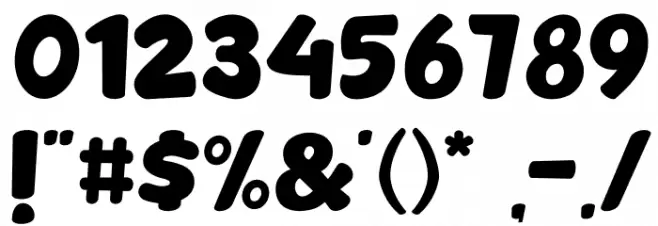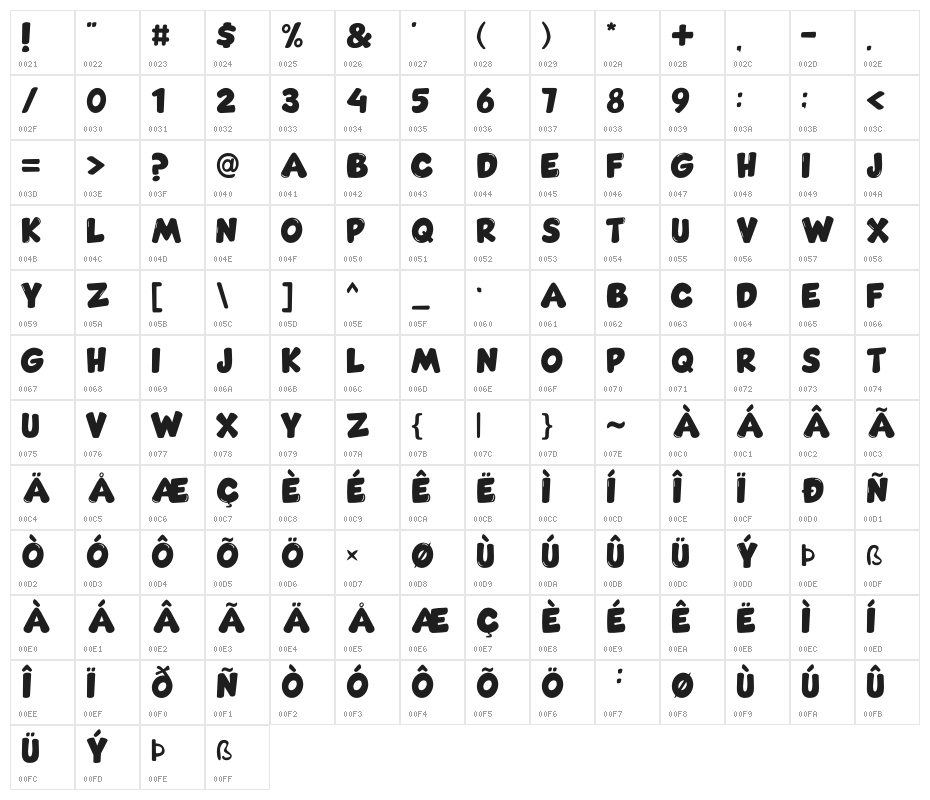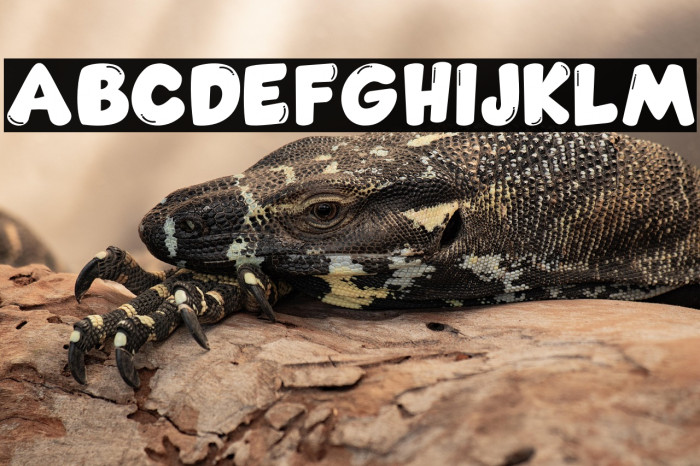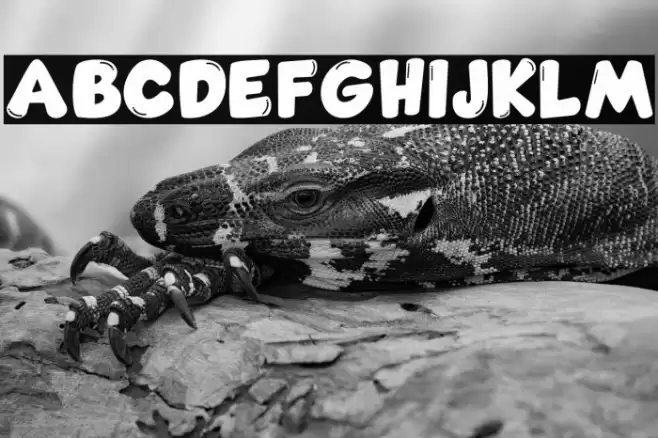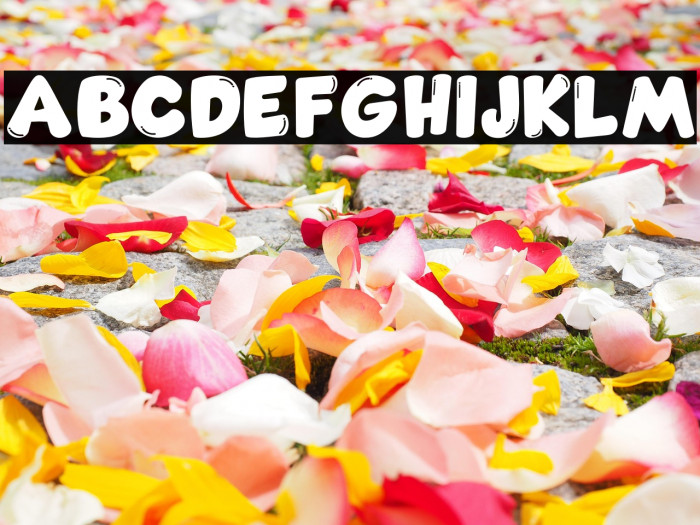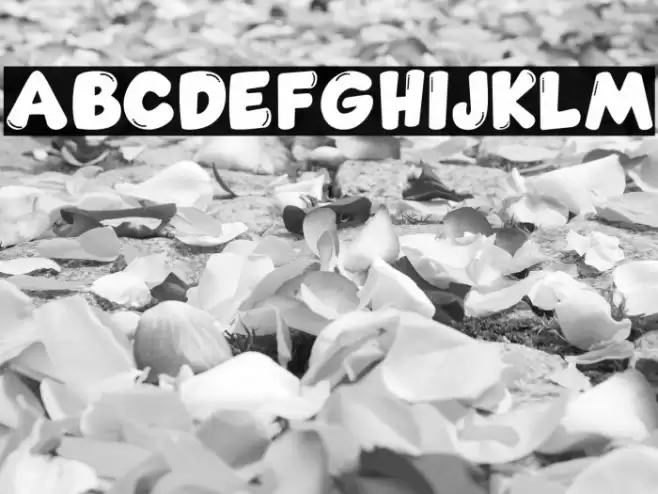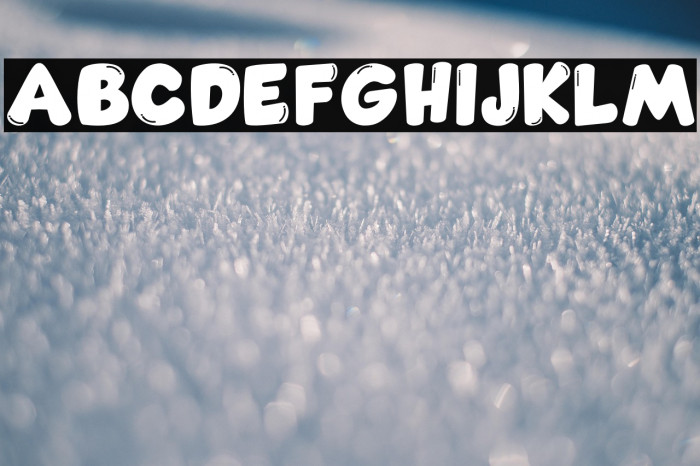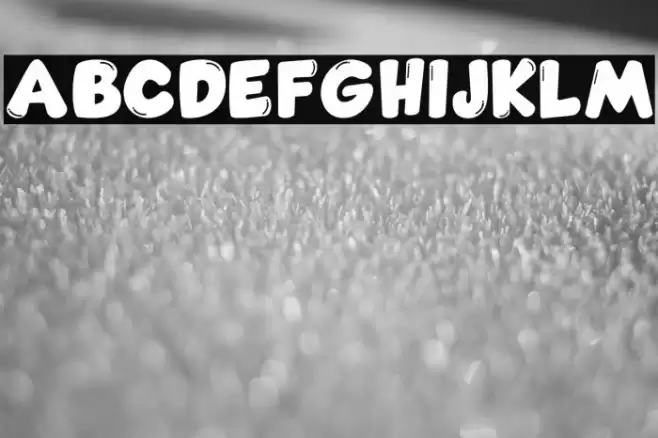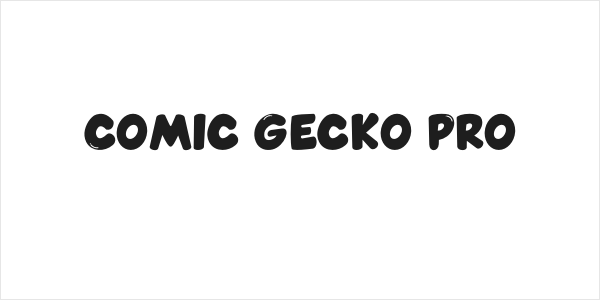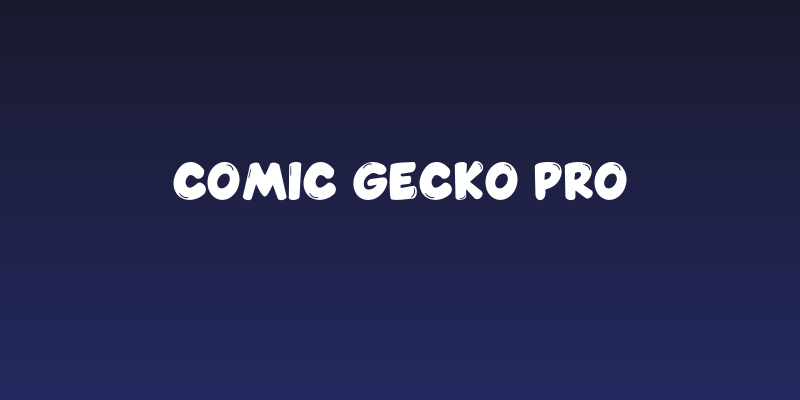
Comic Gecko Pro Font
Comic Gecko Pro Description
This playful and bold font features thick, rounded characters with a cartoonish flair, perfect for capturing attention. The letters are uniformly bold, with a slightly irregular shape that adds a whimsical touch. The font maintains a consistent weight throughout, giving it a strong presence. Its wide character spacing enhances readability while maintaining a fun and informal style. The numbers and special characters are designed to match the playful aesthetic, making it suitable for various creative applications.
| Proposed Projects | Ideal for children's books, comic strips, playful branding, and eye-catching posters. |